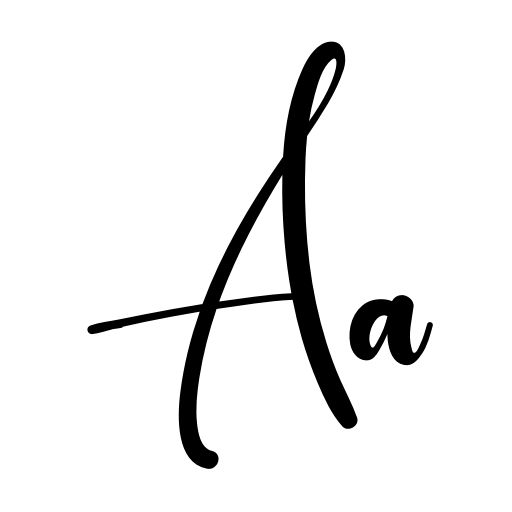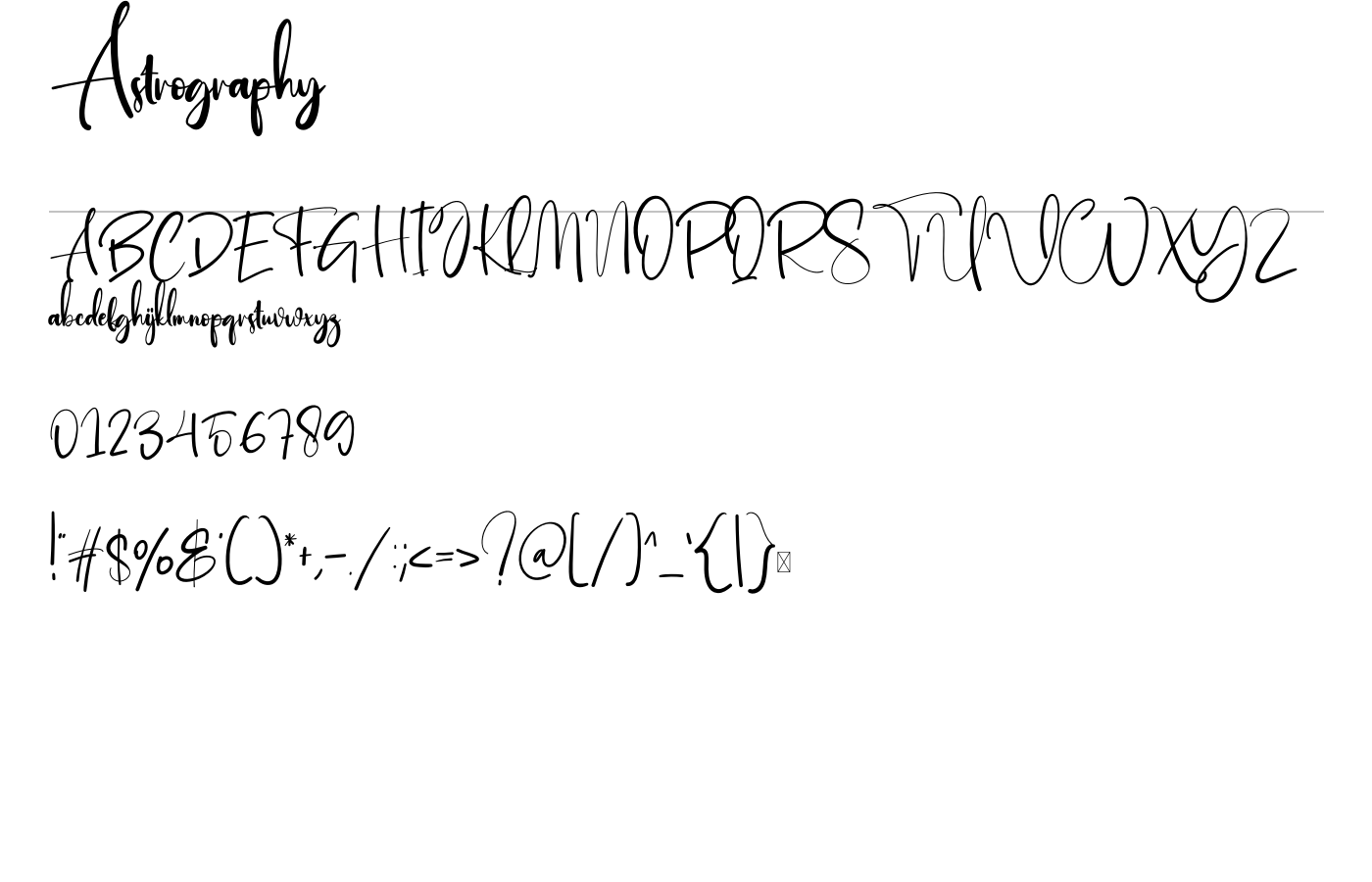
Astrography is an elegant, thin-script font with a modern hand-drawn style characterized by tall, flowing letters and playful swashes. Its delicate strokes and slightly whimsical loops give it a personal, artistic feel, making it ideal for creative logos, wedding invitations, and stylish branding. This font works best in display uses where its unique charm can be fully appreciated without sacrificing readability.
Astrography Font
About Astrography Font